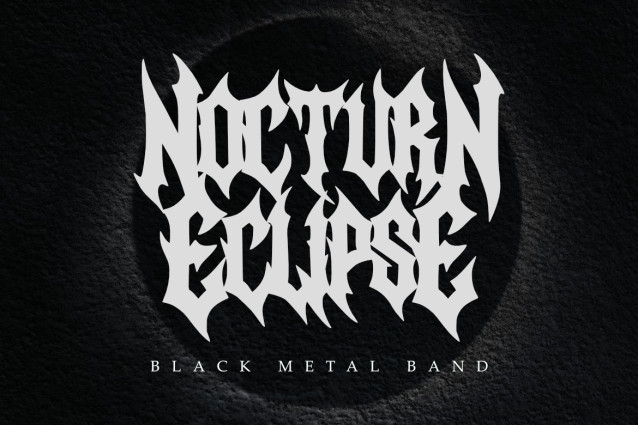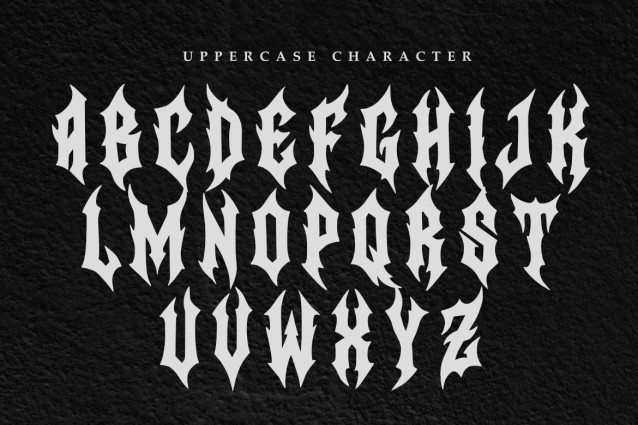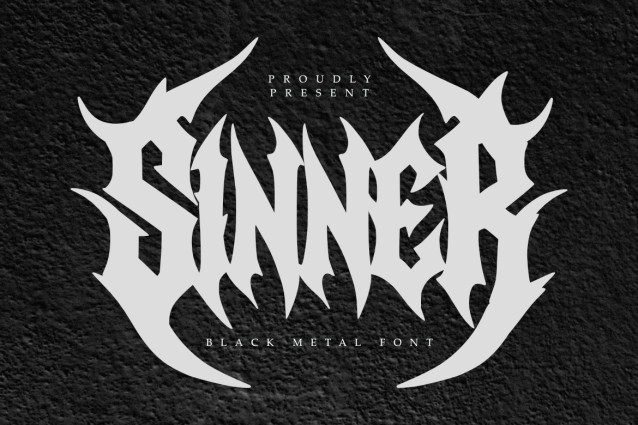
Sinner Font
Sinner Font is a brutal professional font designed for sophisticated branding and high-end extreme design projects.Its sharp and aggressive letterforms provide a contemporary yet timeless feel, striking a perfect balance between solid structural lines and modern metal aesthetics. This font embodies the essence of modern minimalism while maintaining a sense of raw power and refinement, making it perfect for logos, corporate materials, and professional presentations within the music industry.Whether you are crafting a corporate identity for an extreme label, designing sleek business cards for a tattoo studio, or working on editorial content, Sinner ensures your work exudes professionalism and style. Ideal for branding, business logos, websites, and more, its refined design effortlessly elevates your project.Inspired by the vibrant energy of the underground scene and heavy dark typography, Sinner offers versatility and adaptability for various design applications, helping you communicate a polished and modern aesthetic that leaves a lasting impression.